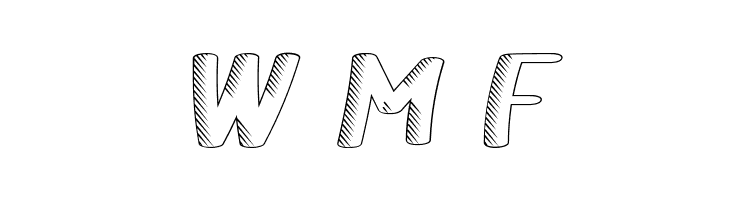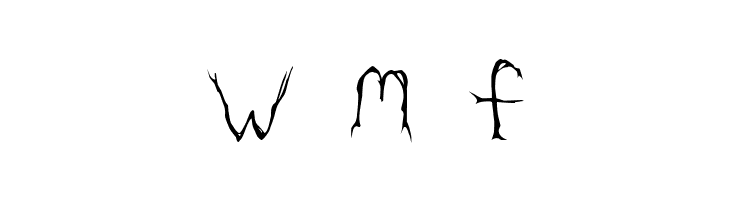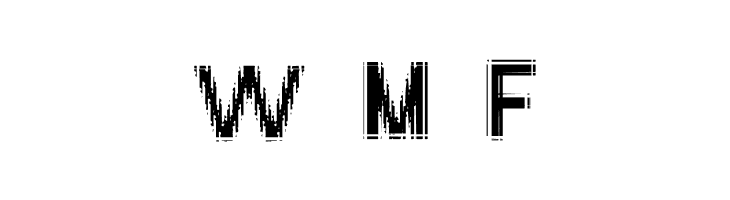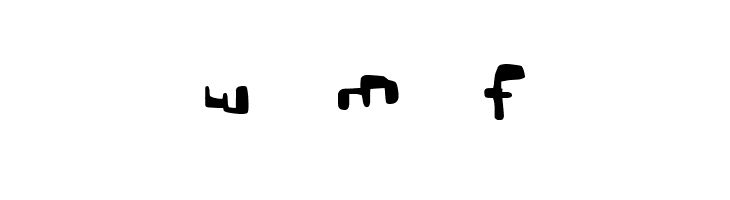
Action Jackson Font
Font by Divide By Zero! - fonts.tom7.com
A playful, bold font with a 3D shadow effect and cartoonish style.
Tom's New Roman Font
Font by Divide By Zero! - fonts.tom7.com
A classic serif font with elegant, traditional letterforms and moderate contrast.
Davis Font
Font by Divide By Zero! - fonts.tom7.com
A whimsical, hand-drawn font with irregular strokes and a playful style.
Linear Font
Font by Divide By Zero! - fonts.tom7.com
A geometric, linear font with a modern, hollow design.
Angstrom Font
Font by Divide By Zero! - fonts.tom7.com
A bold, pixelated font with a modern, digital aesthetic.
Colophon DBZ Font
Font by Divide By Zero! - fonts.tom7.com
A dynamic, hand-drawn font with bold, expressive strokes and playful character.
Melanie [Girly] Font
Font by Divide By Zero! - fonts.tom7.com
A whimsical and decorative script font with playful, flowing letterforms.
Natural Log Font
Font by Divide By Zero! - fonts.tom7.com
A playful, hand-drawn font with rounded, organic shapes.
Two Turtle Doves Font
Font by Divide By Zero! - fonts.tom7.com
A playful, hand-drawn font with a whimsical and informal style.
7 hours Font
Font by Divide By Zero! - fonts.tom7.com
A playful, hand-drawn font with looped, doodle-like characters.
Epilog Font
Font by Divide By Zero! - fonts.tom7.com
A playful, bold font with rounded edges and a hand-drawn feel.
Valium Font
Font by Divide By Zero! - fonts.tom7.com
An edgy, thorn-like font with jagged, organic letterforms and bold, rectangular numbers.
Boring Boron Font
Font by Divide By Zero! - fonts.tom7.com
A bold, modern sans-serif font with geometric influences and excellent readability.
Prefix Font
Font by Divide By Zero! - fonts.tom7.com